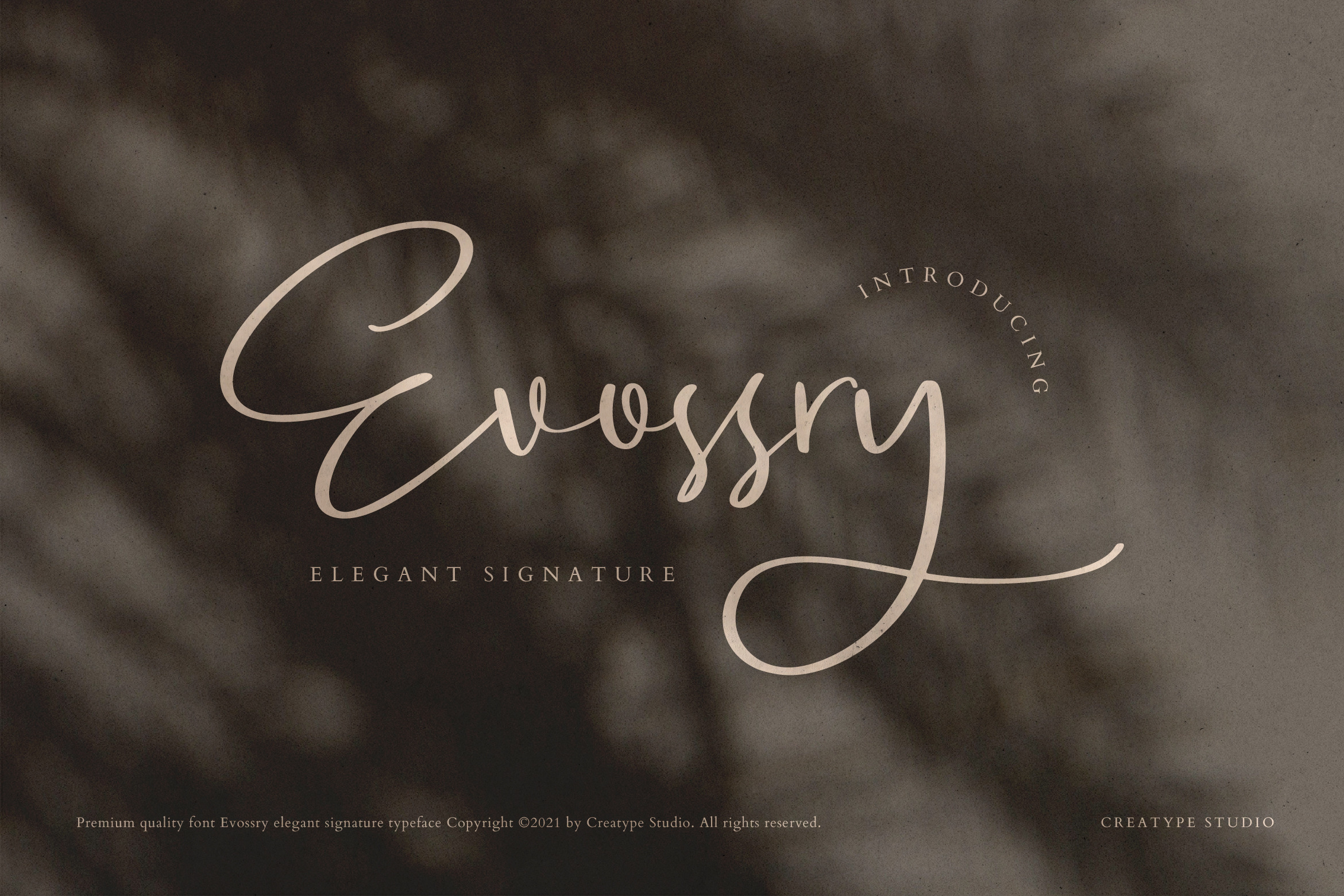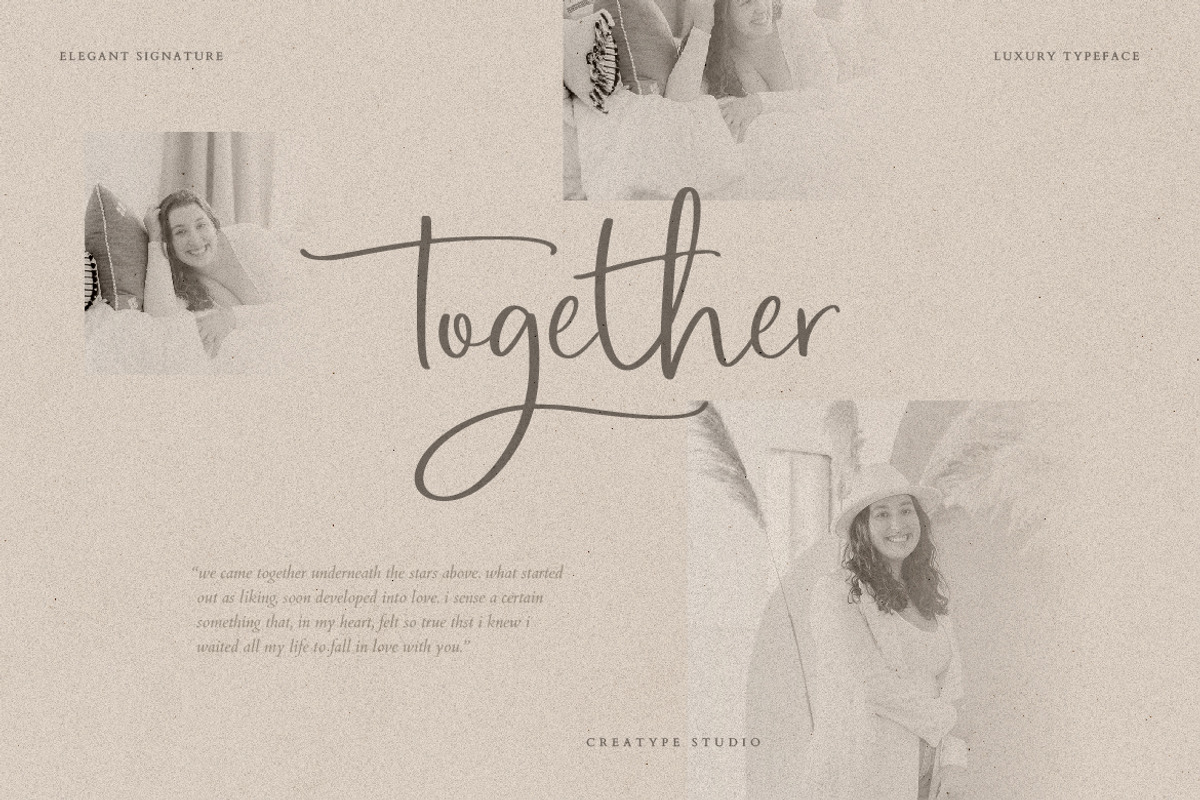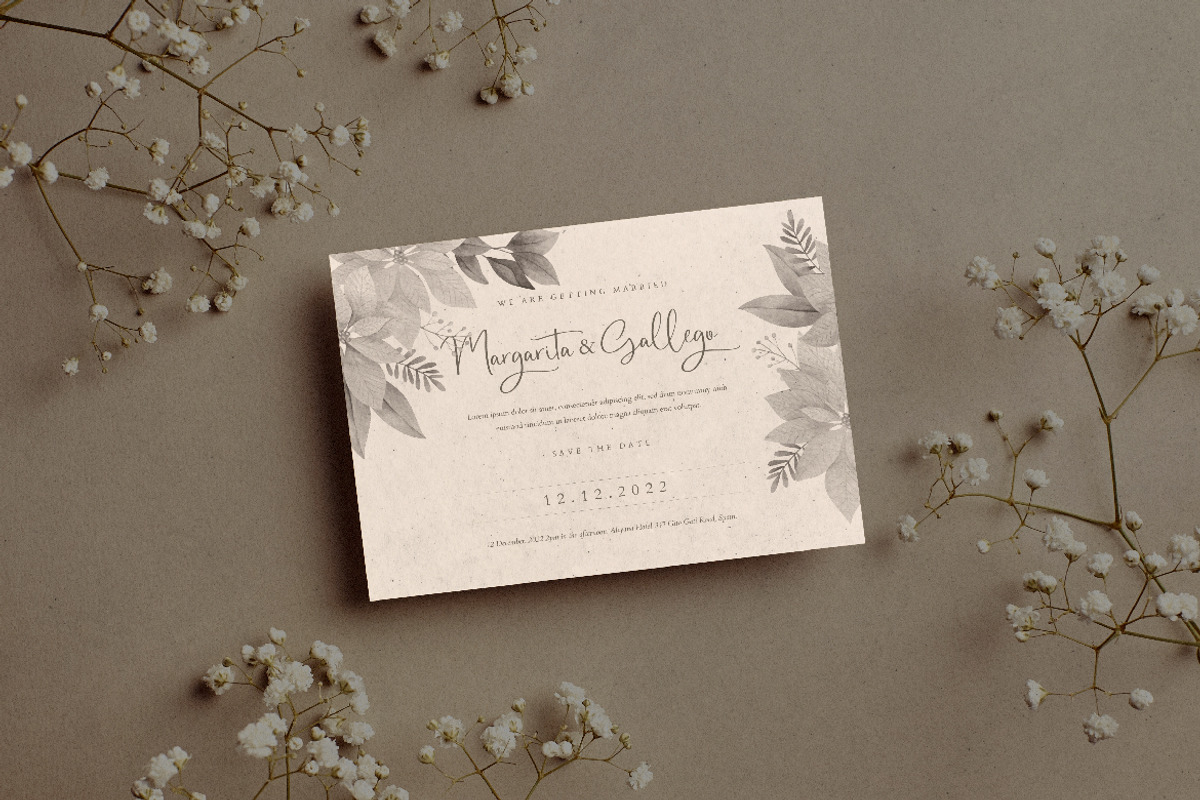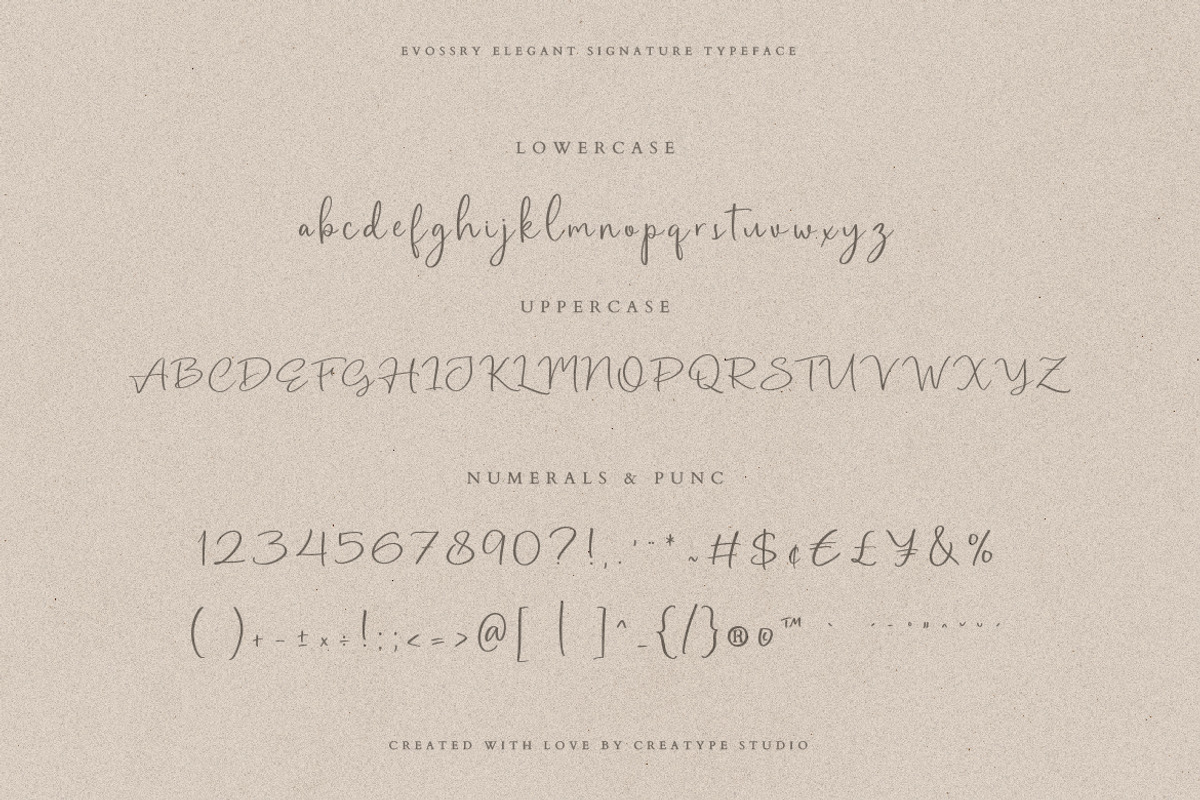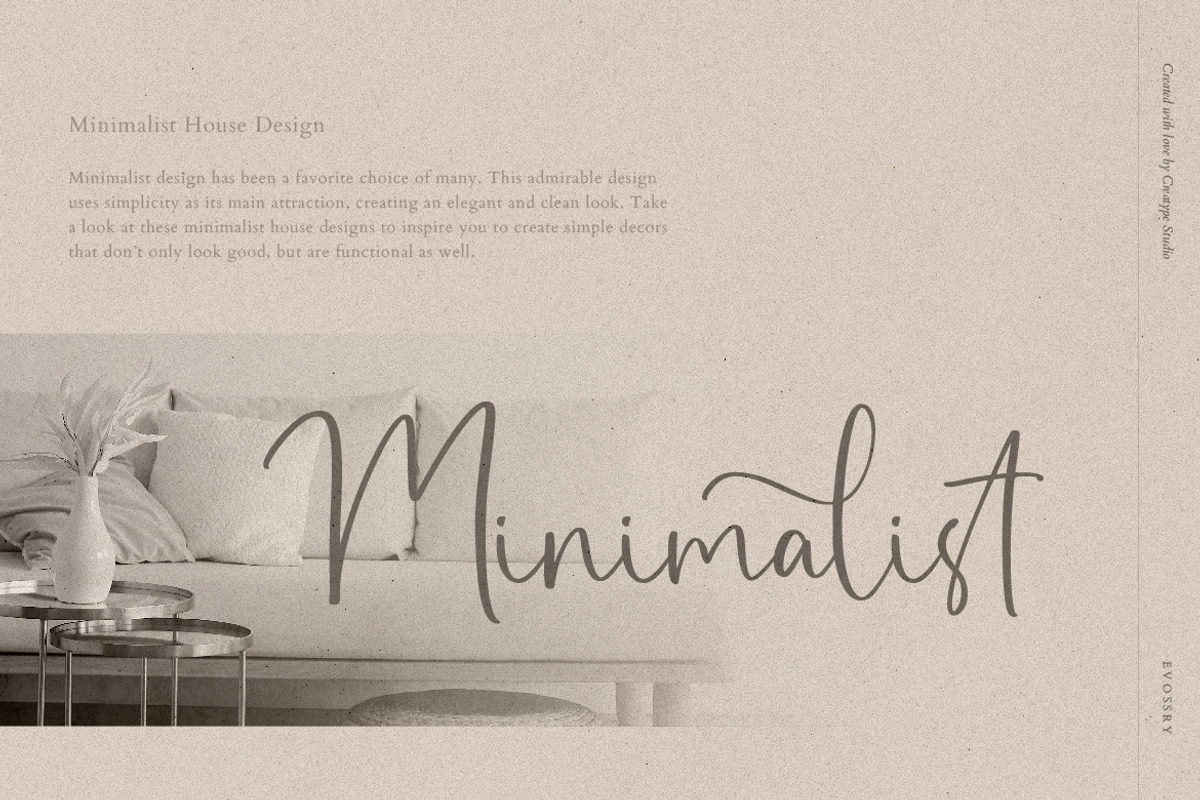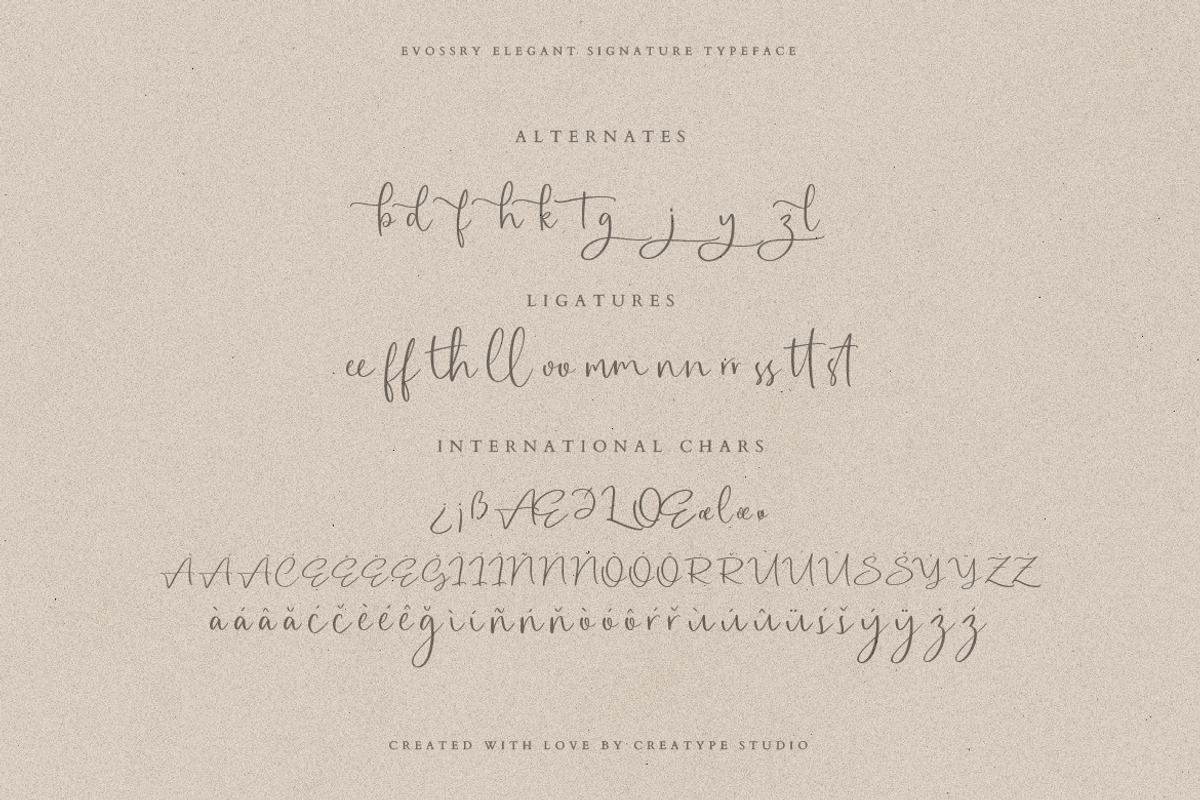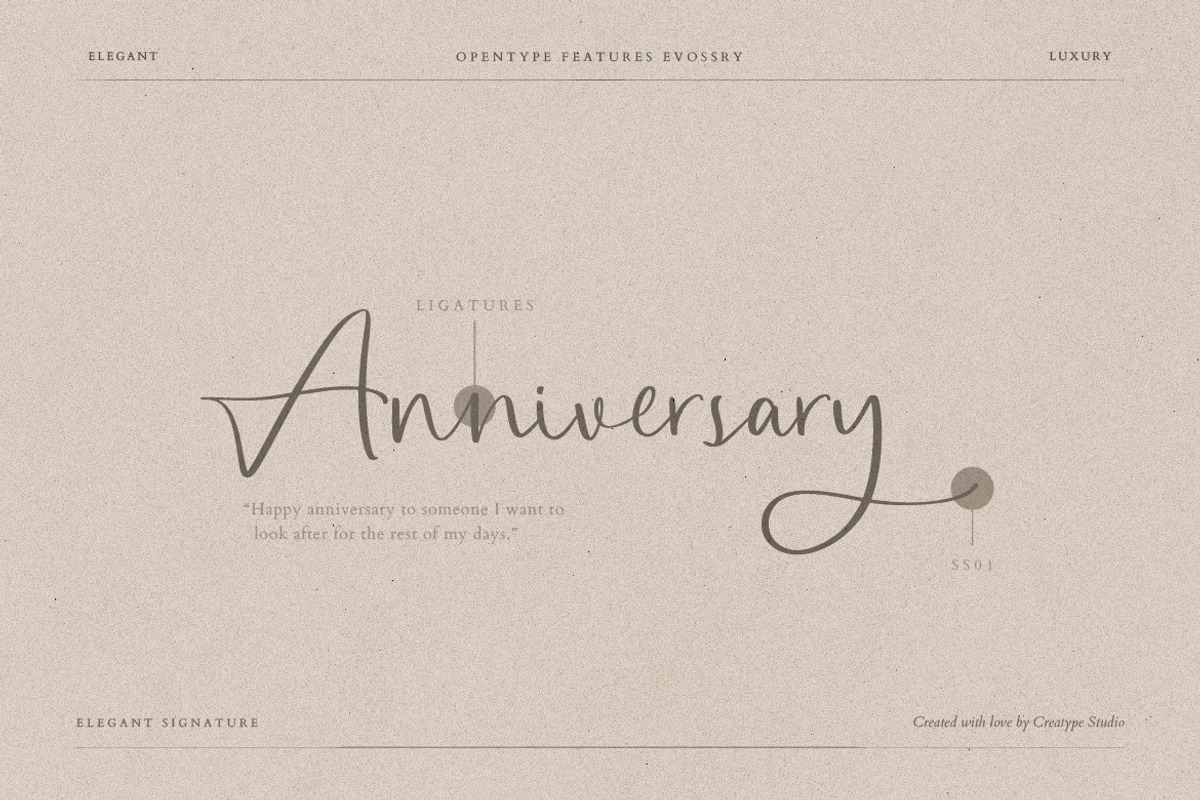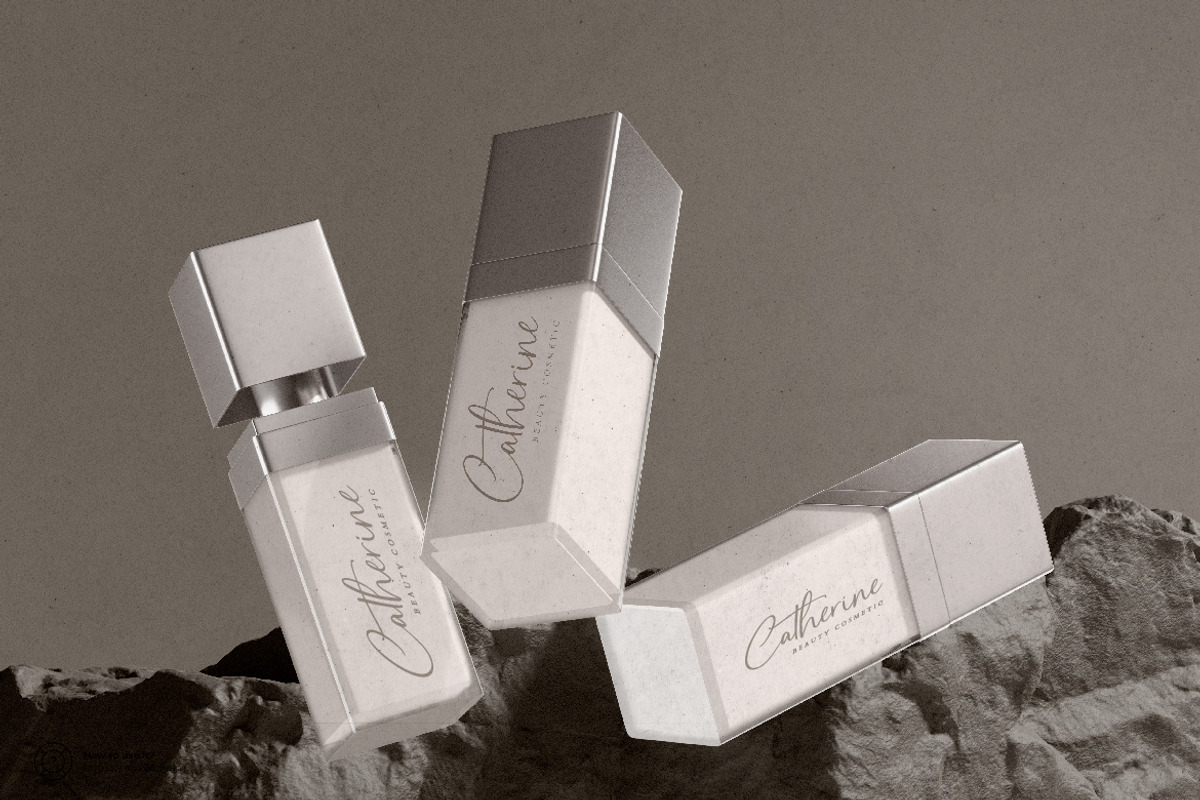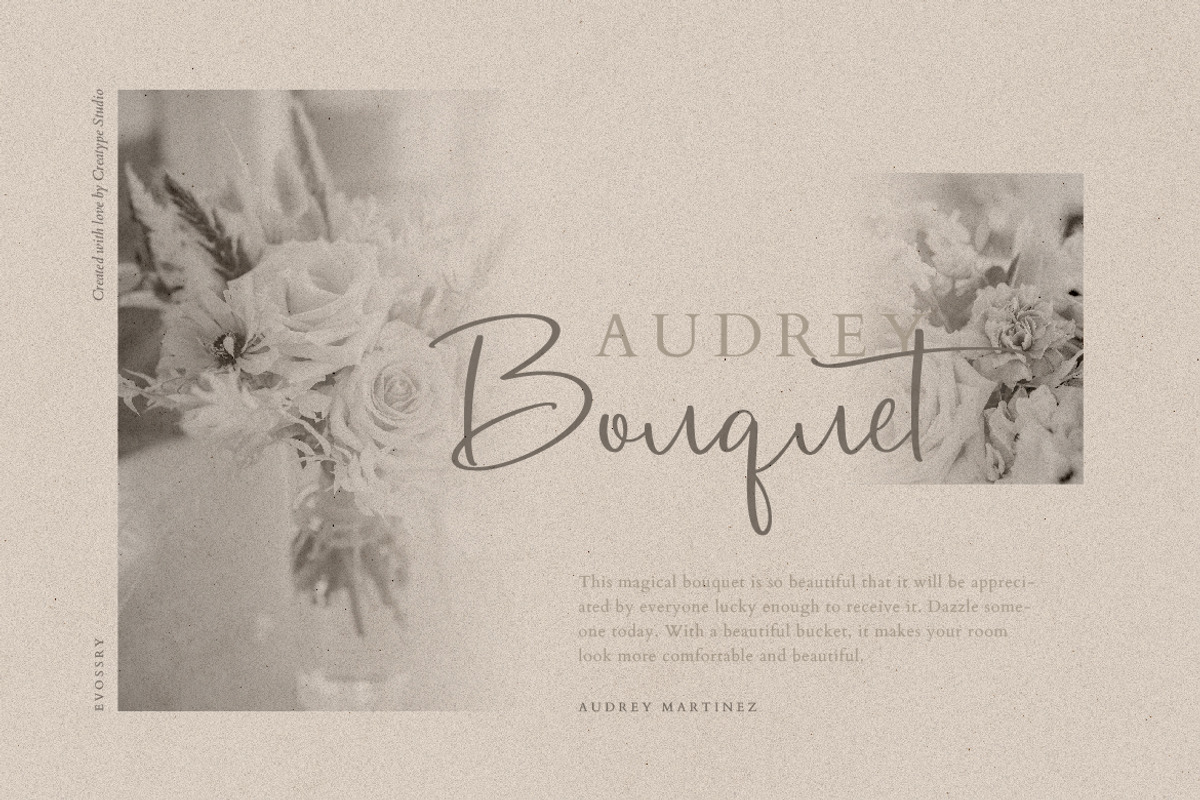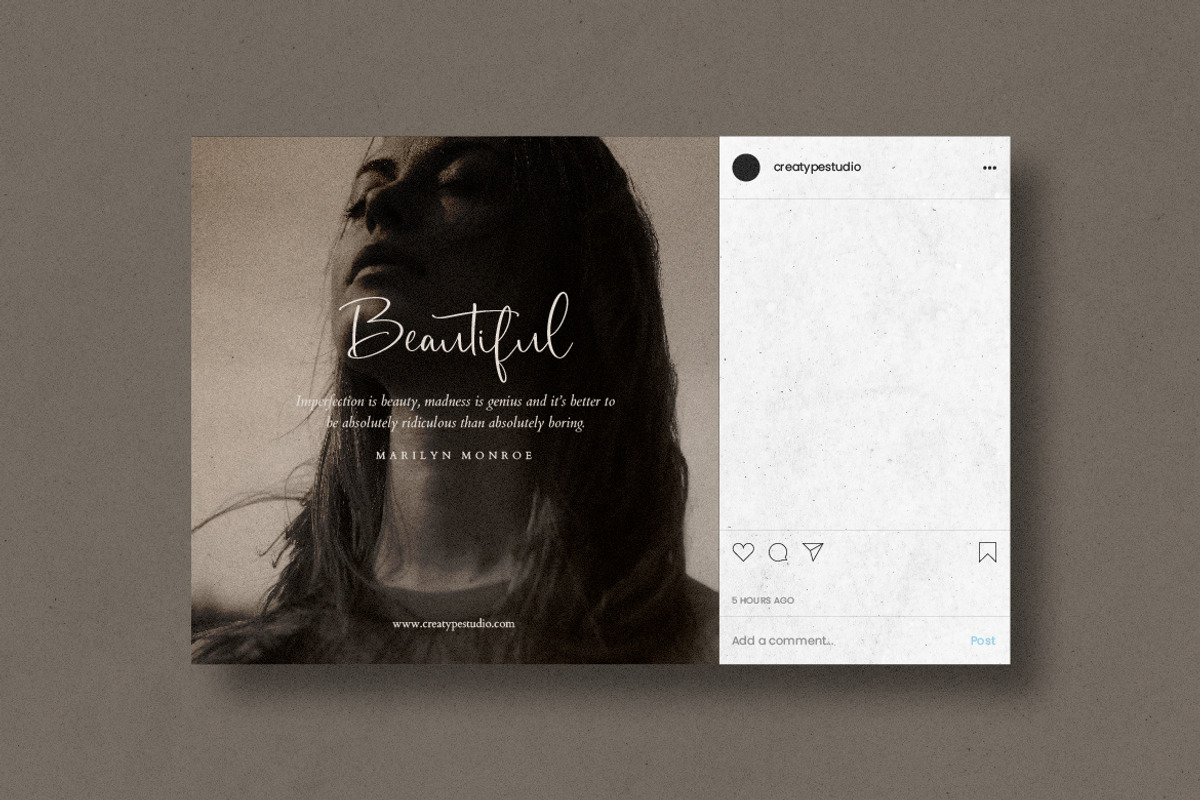
Evossry Signature Business Font
Evossry is a elegant signature typeface specially made to look so natural. This font has been carefully designed for natural handwritten text, that it is perfect when paired with an uppercase serif or sans serif font, like the preview above.
Evossry is perfect for branding projects, logo, wedding designs, social media posts, advertisements, product packaging, product designs, label, photography, watermark, invitation, stationery and any projects that need handwriting taste.
- Ligature & Alternate